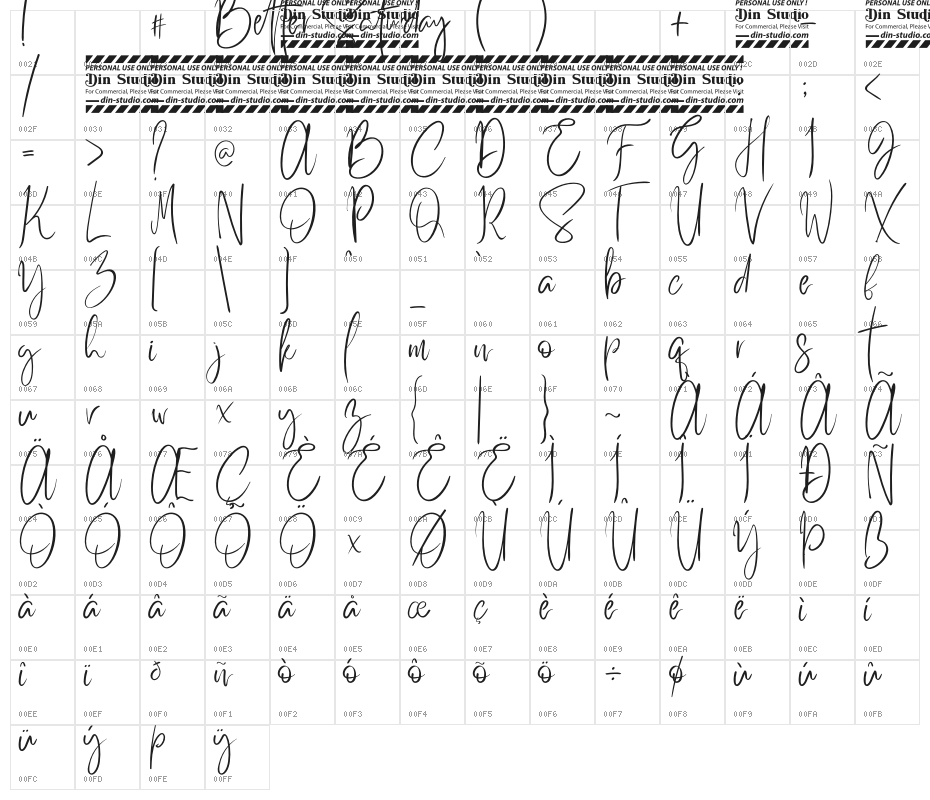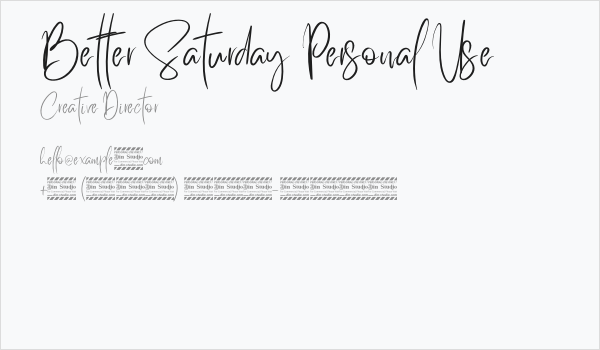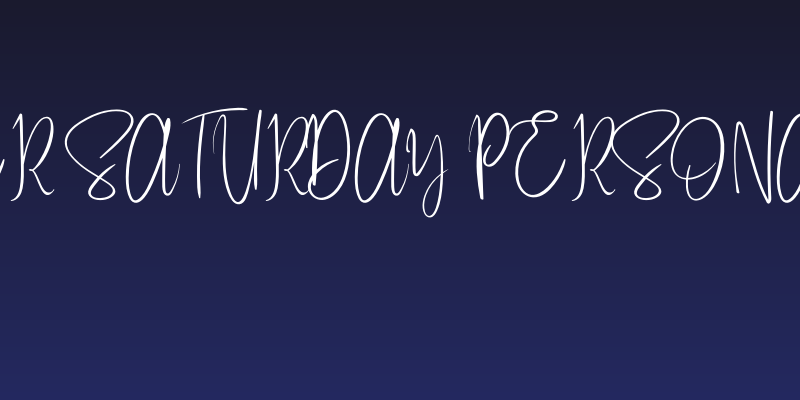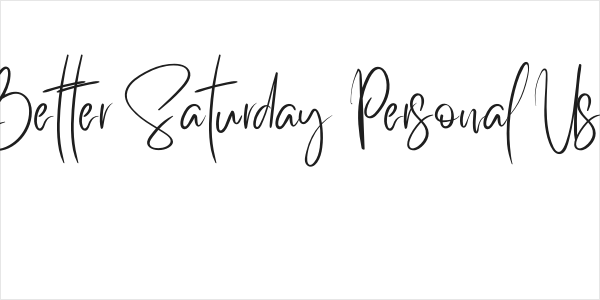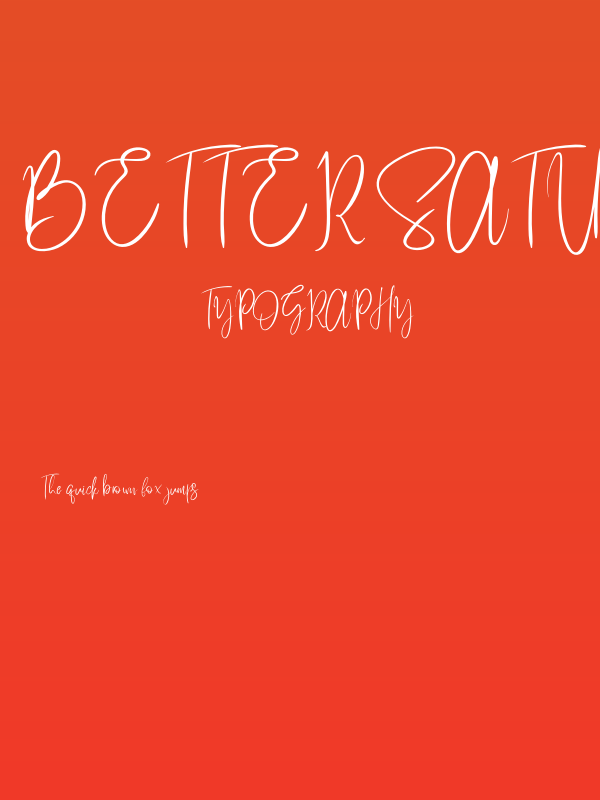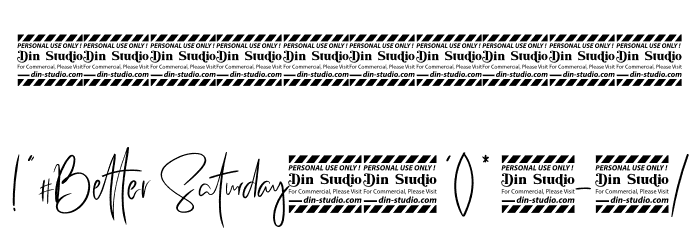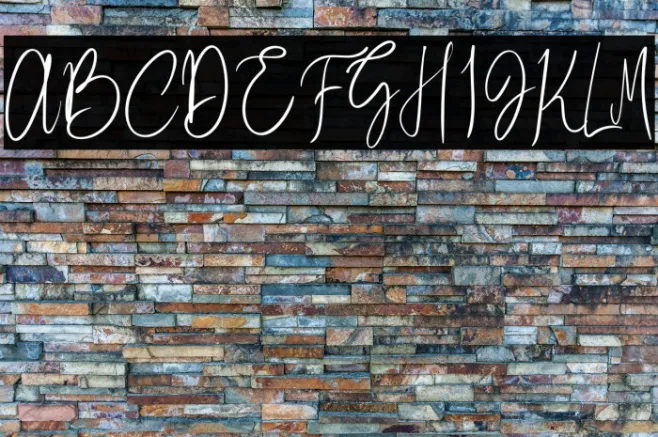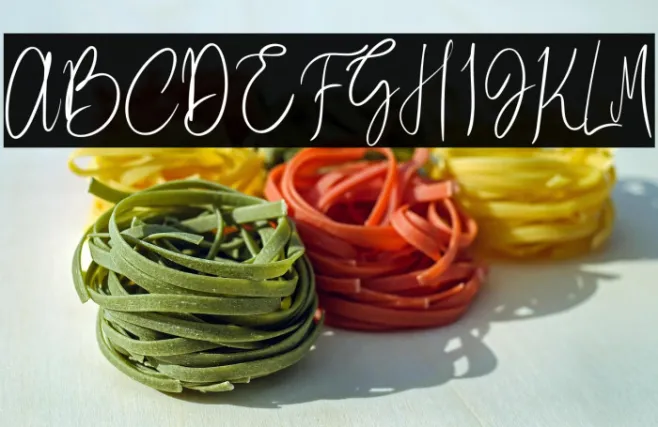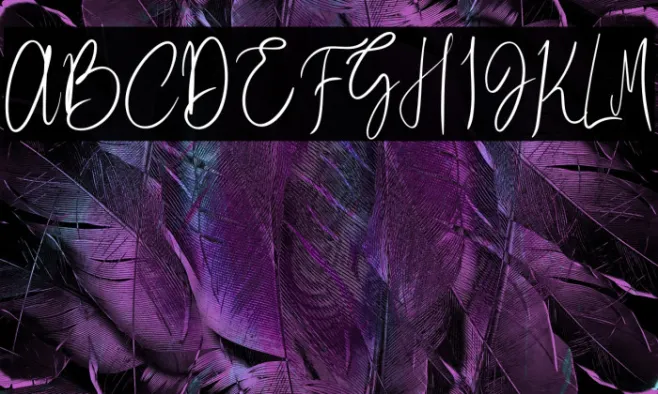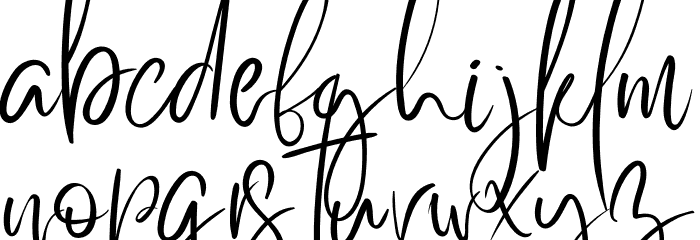
Better Saturday Personal Use Font
Better Saturday Personal Use Description
This font features a lively and expressive handwritten style, characterized by its flowing and cursive letterforms. The uppercase letters are tall and elegant, with a slight slant that adds a dynamic feel. The lowercase letters maintain a consistent style, with loops and curves that enhance its handwritten appearance. The numerals and special characters are crafted to match the overall aesthetic, providing a cohesive look. This font exudes a casual yet sophisticated vibe, making it suitable for creative and personal projects.
| Use Case | Logos, Invitations, Personal projects |
| Proposed Projects | Ideal for wedding invitations, greeting cards, personal branding, and creative projects that require a personal touch. |